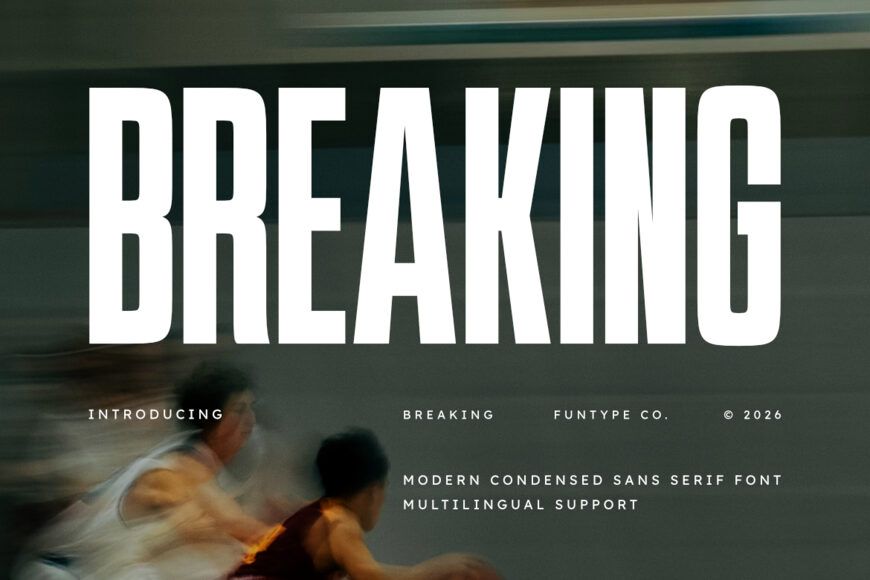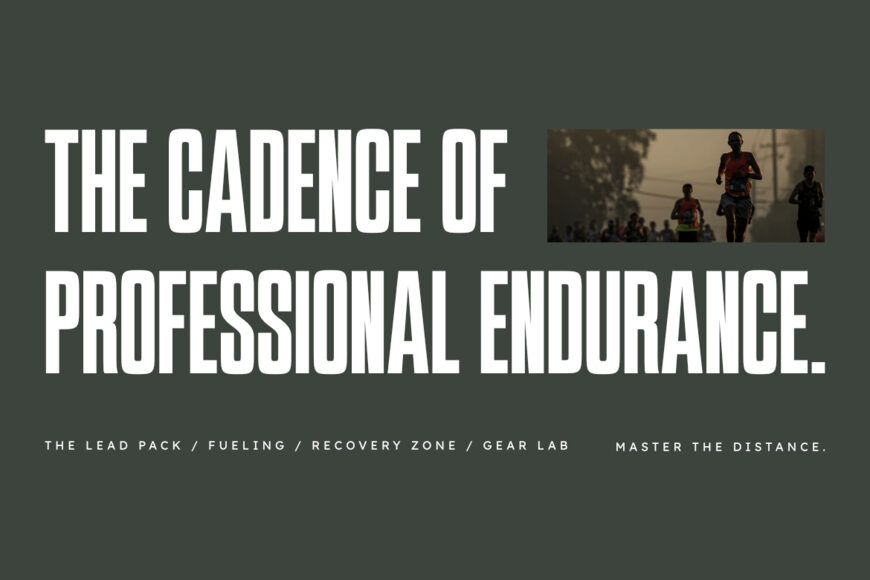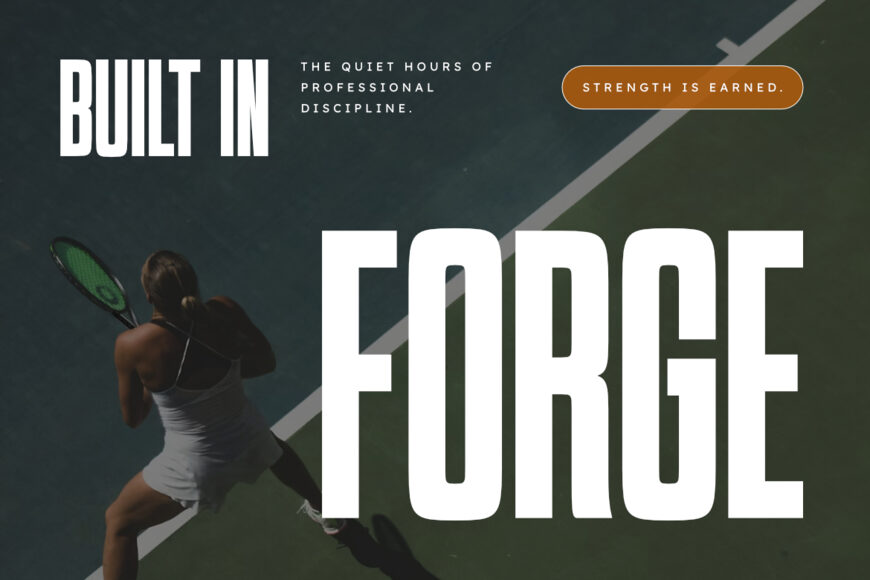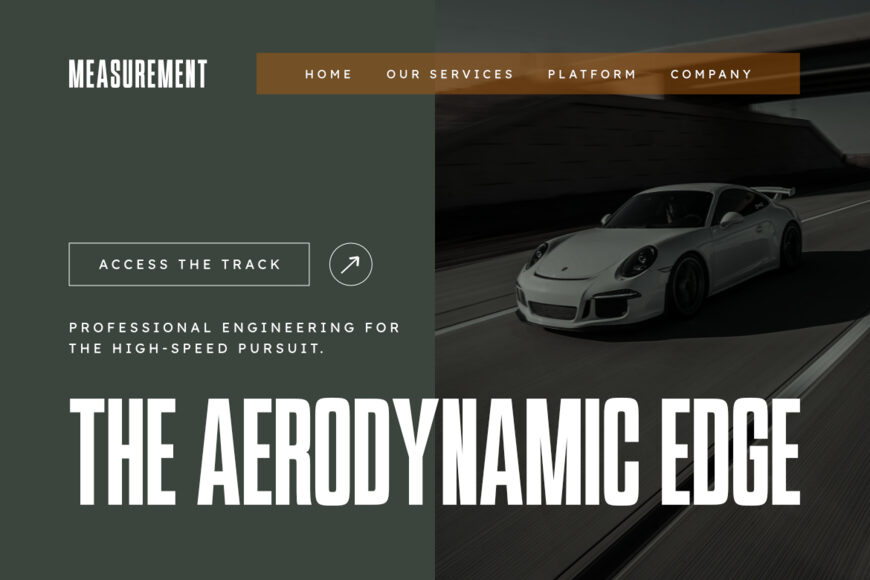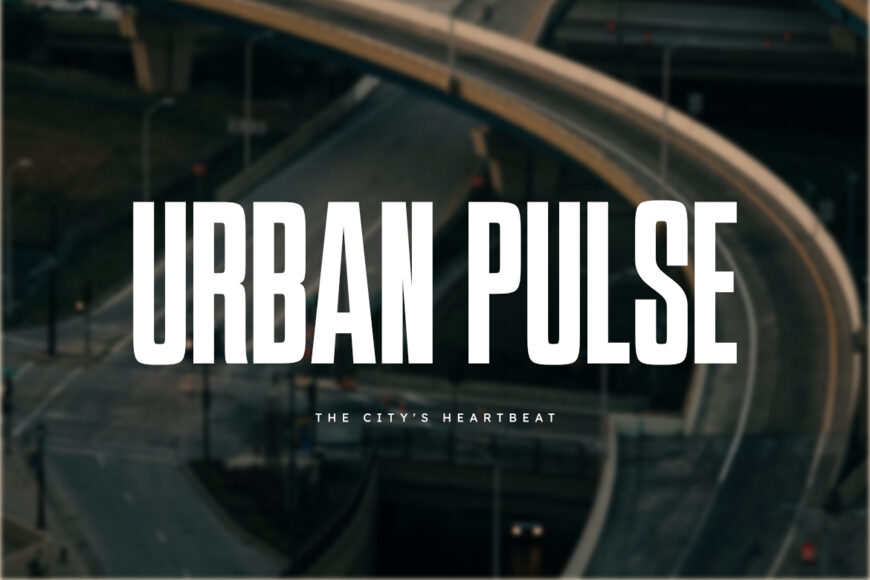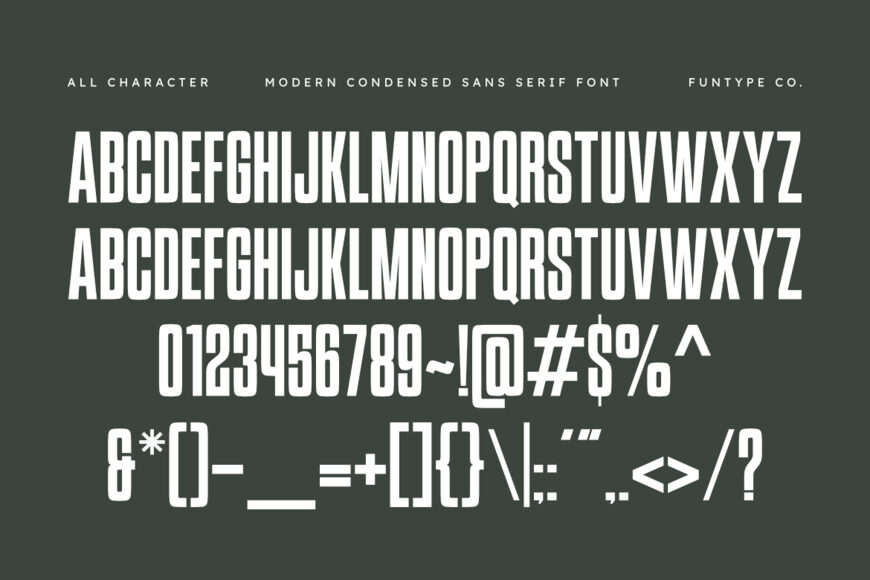
Breaking is a towering, robust, and highly dynamic modern condensed sans serif font designed for high-impact and precise professional display typography.
Featuring a narrow geometric structure with solid block lines and smooth softened edges, this font is perfect for strong headlines, athletic team logos, active sports branding, and high-velocity digital posters. Its confident, tall, and perfectly balanced layout gives your visuals a striking, advanced, and deeply powerful appearance.